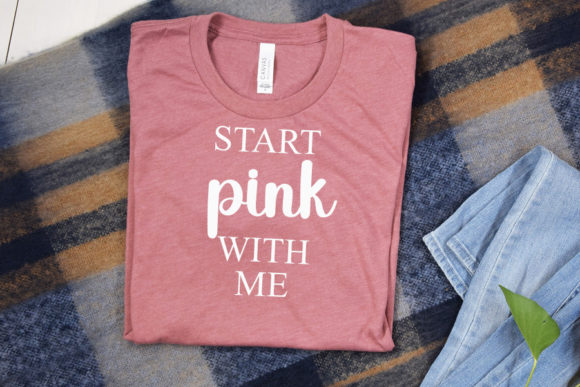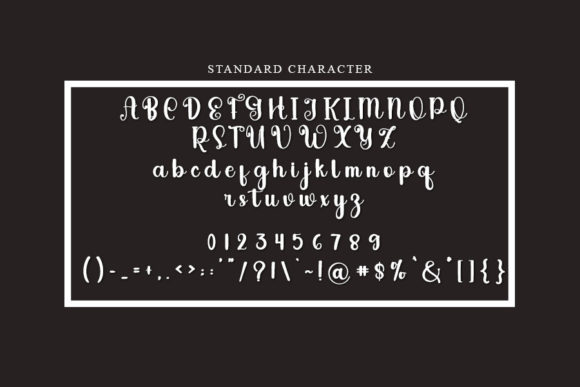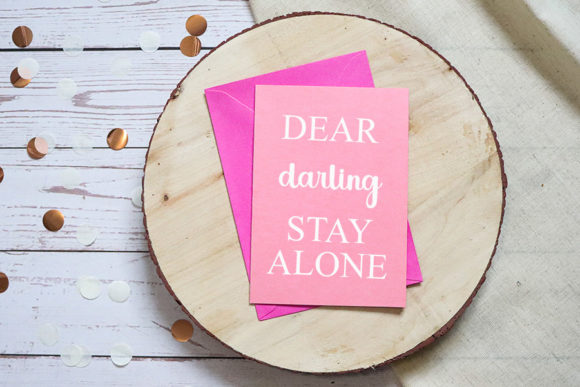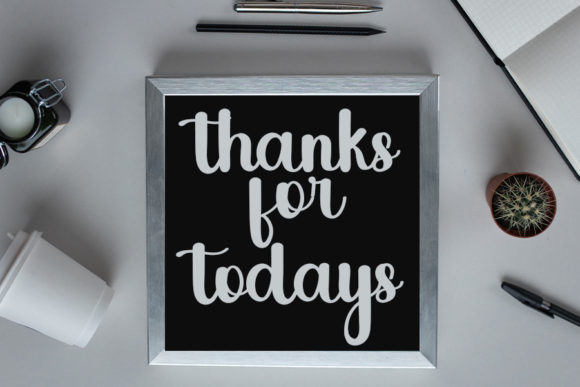
Cinematic Font
About Cinematic Font
Cinematic is a gorgeous and bold handwritten font, crafted to give your headlines and logotype projects a stylish touch. This font reads as strong, confident, and dynamic and can add tons of nostalgic character to your designs.